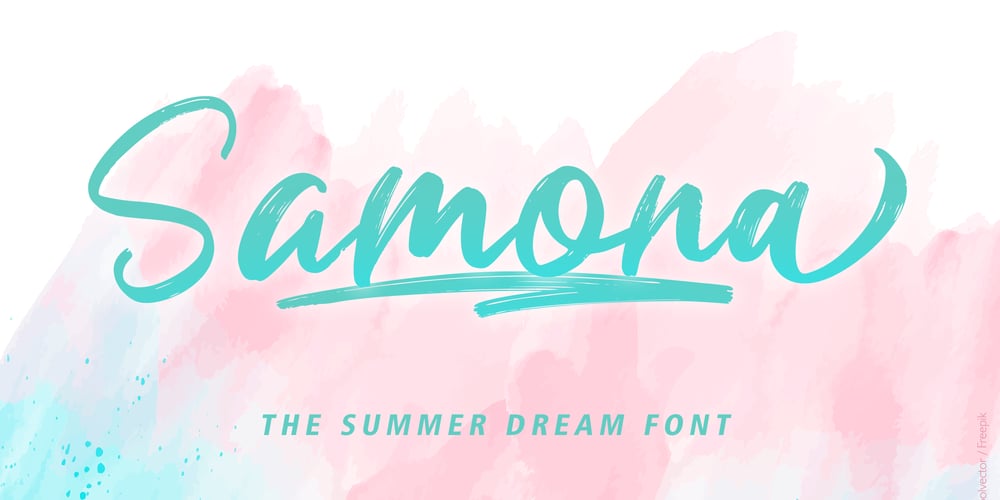
Samona Font Family was designed by Yean Aguste and published by HandletterYean. Samona contains 2 styles and family package options. Samona is a simple handwritten script font that shows happiness, love, and hope in our lives. Samona is easy to apply to any of your designs or artwork. I hope you like it ๐